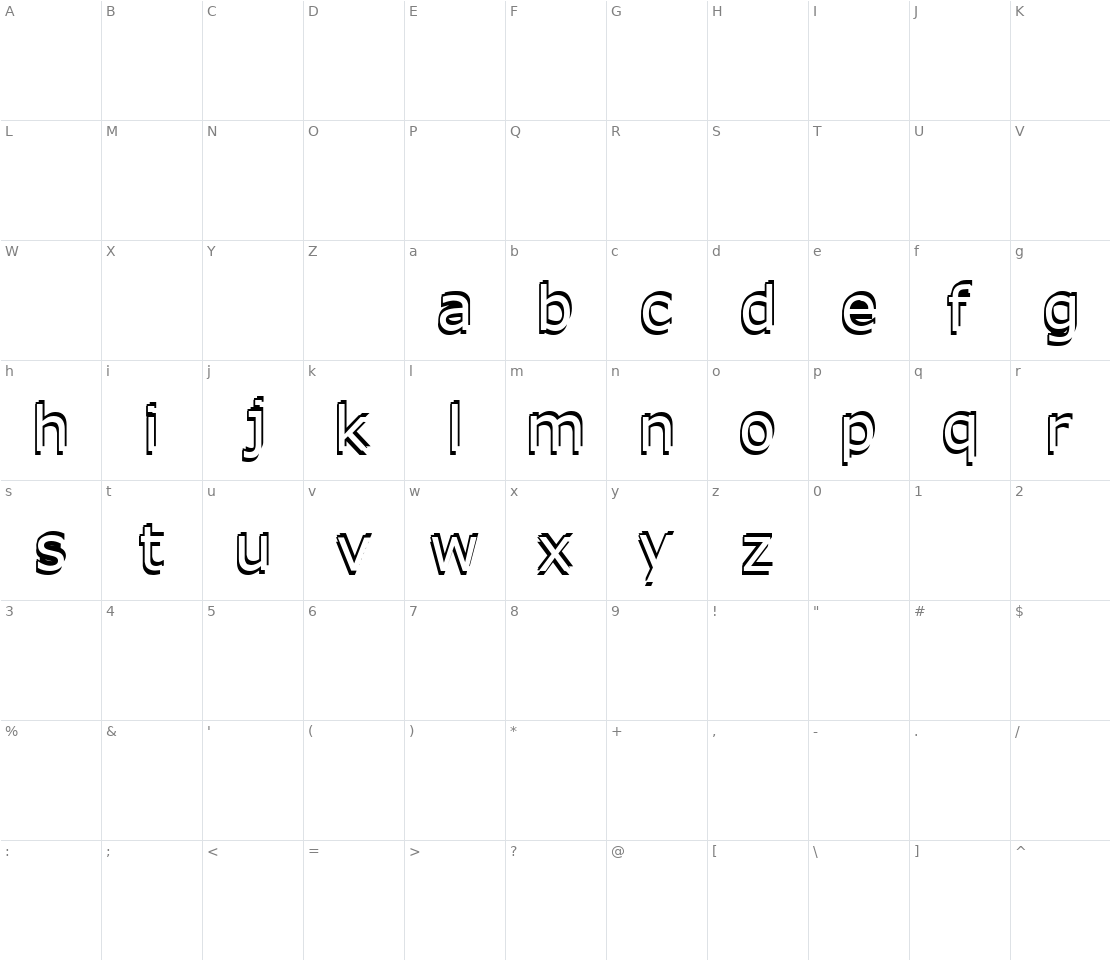
Overlap
Overlap is a bold decorative display face from i2design where each letterform features inline striping that creates the illusion of layered, overlapping planes. The effect is graphic and eye-catching without being chaotic, giving headlines, posters, and branding work a distinctly modern, design-forward edge. It reads cleanly at large sizes, where the striped detail has room to do its thing.